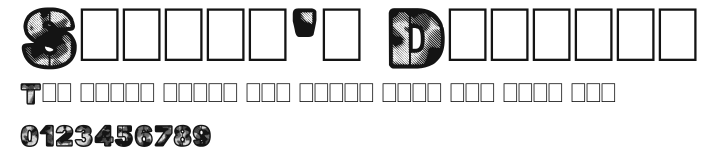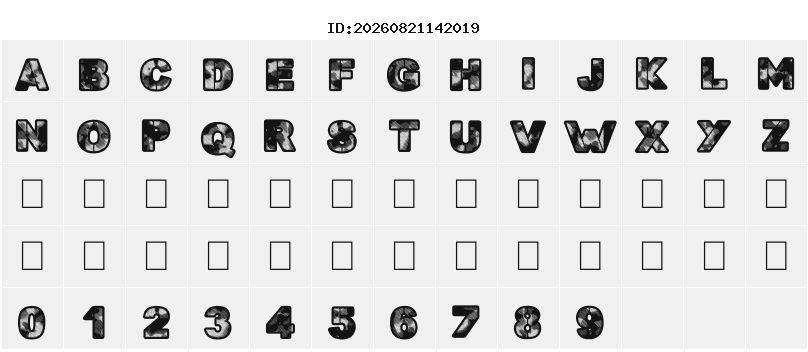
Search'n Destroy Preview
• Font Name: Search'n Destroy
• Full Font Name: Search'n Destroy
• Character Count: 42
• Designer: Imagex
About Search'n Destroy.ttf
Search'n Destroy.ttf is a modern, elegant sans-serif font designed for ultimate readability and visual harmony. Perfect for branding, headlines, web design, and print materials.